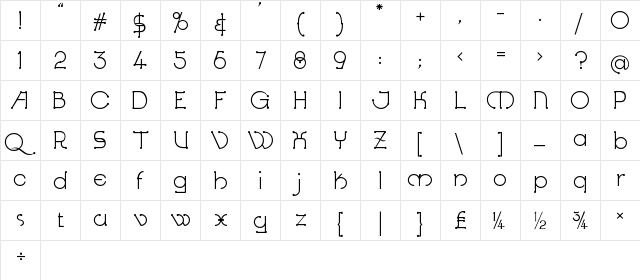
Kingthings Knobson Regular
| Designer | Kevin King. Exeter. 2008 |
Design Context for Kingthings Knobson Typeface
Kingthings Knobson is a composed and adaptable typeface that performs quietly and consistently across a wide range of design contexts. The delicate stroke weight brings airiness and refinement to layouts.